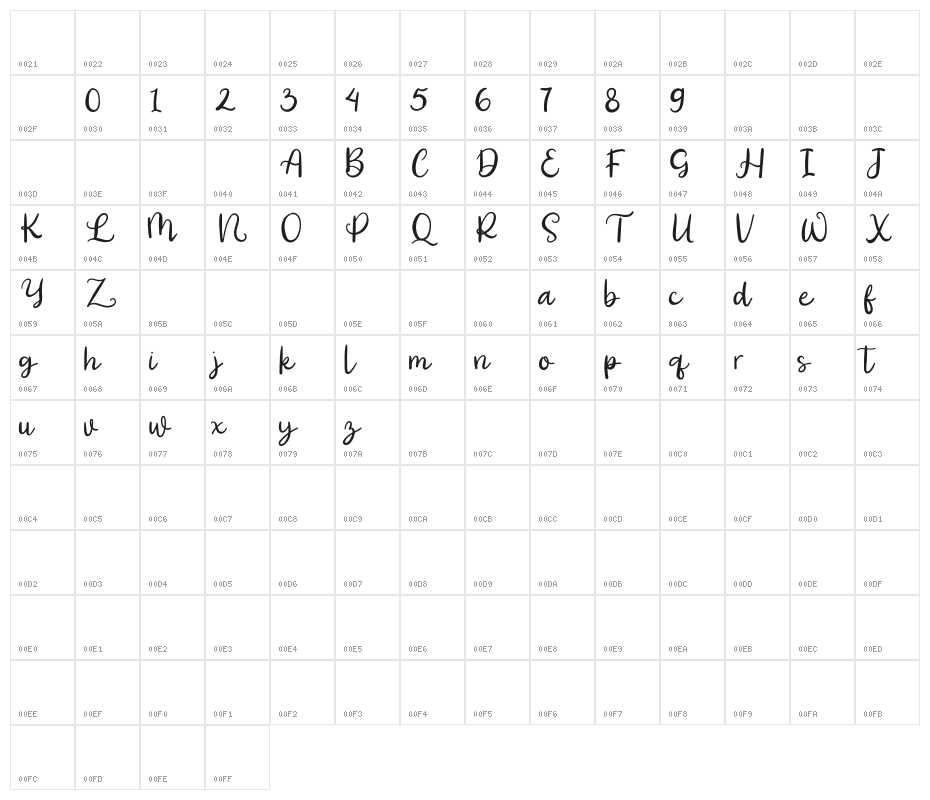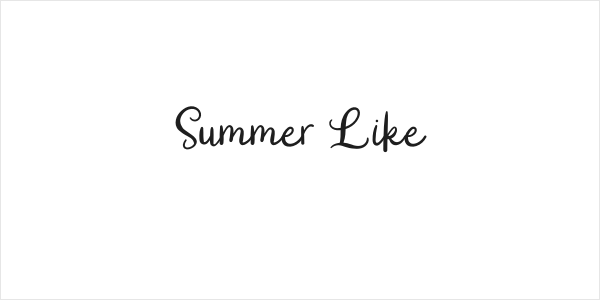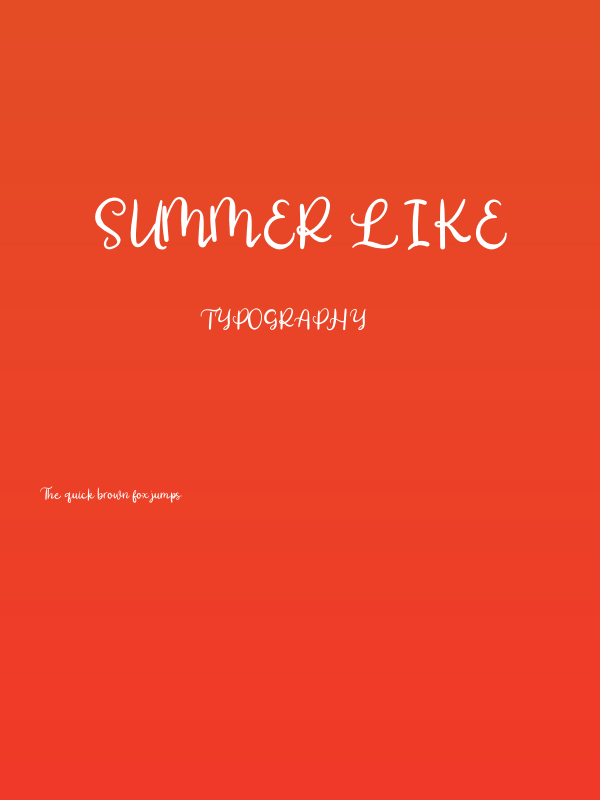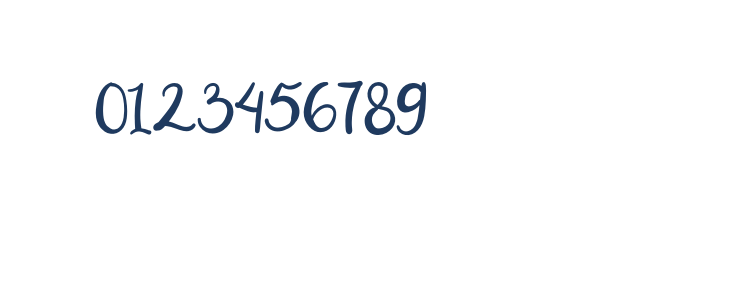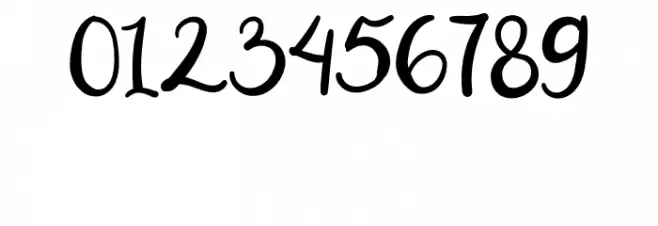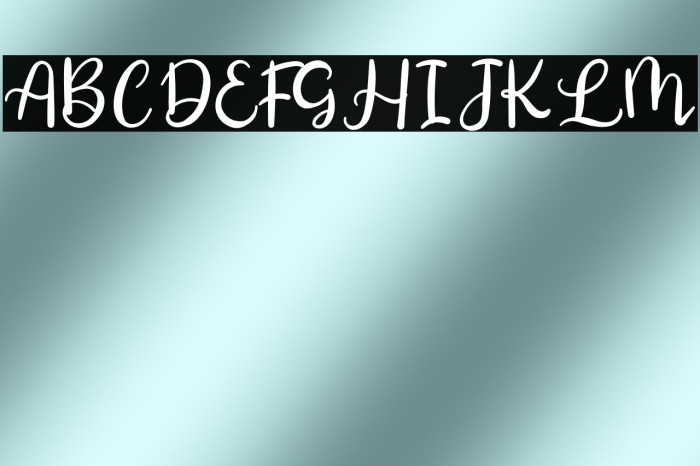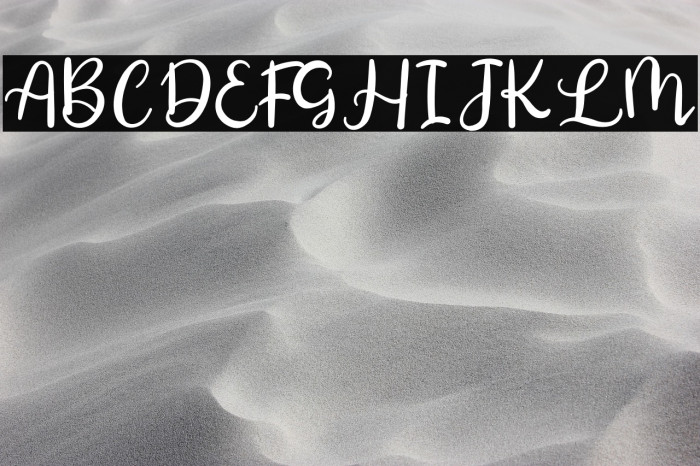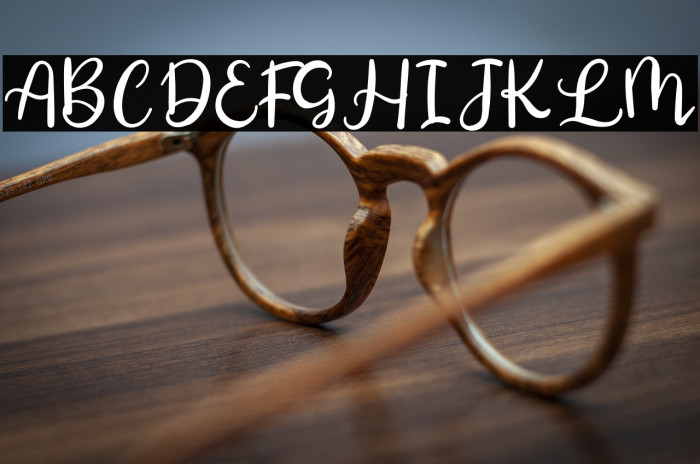
Summer Like Font
Summer Like Description
This font exudes a playful and casual vibe, reminiscent of handwritten notes or summer postcards. The characters are fluid and slightly whimsical, with a consistent stroke width that maintains readability while adding a touch of personality. The uppercase letters are bold and confident, while the lowercase letters are more relaxed, featuring loops and curves that suggest a carefree attitude. The numbers are clear and straightforward, complementing the overall style. This font is perfect for projects that require a personal touch, such as invitations, greeting cards, or branding for creative businesses.
| Proposed Projects | Ideal for invitations, greeting cards, creative branding, and personal projects. |